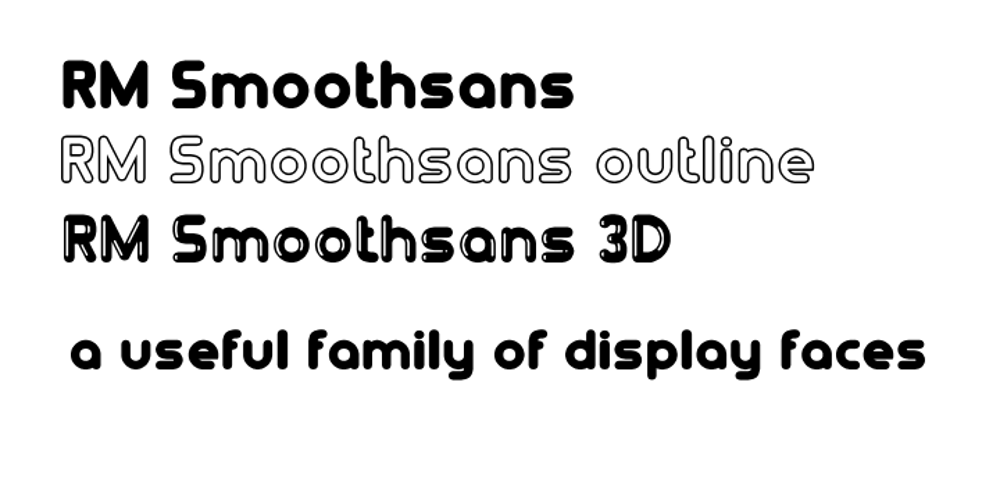
RM Smoothsans Font Family was designed by Ray Meadows and published by Ray Meadows. RM Smoothsans contains 3 styles and family package options. A family of soft, rounded, yet bold display faces which can successfully be used in conjunction with one another. Due to the modular nature of this design there may be a very slight lack of smoothness to the curves at extremely large point sizes (around 200 pt and above).